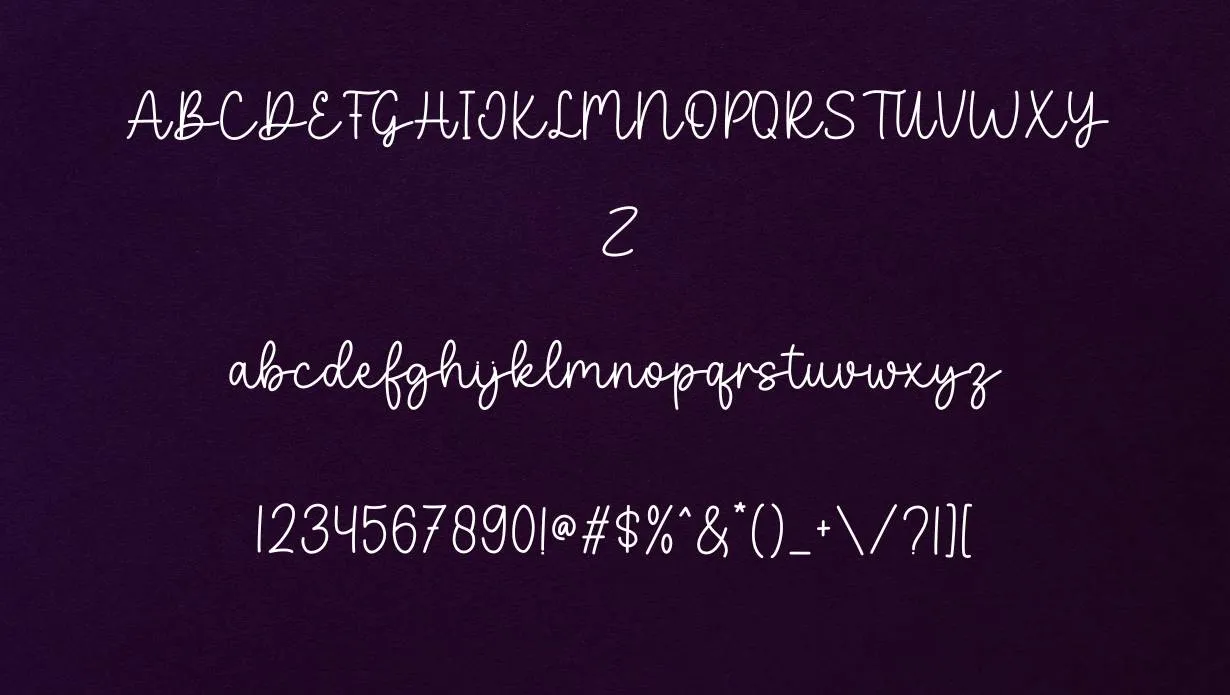
The Abigail font is a timeless and elegant typeface commonly used in designs seeking a sophisticated appeal. Its intricate and stylish letters are perfect for expressing an aura of grace and significance. Discover the charm of this classic font and elevate your projects with a touch of sophistication that never goes out of style.
This font is commonly used in invitations, editorial content, or formal documents. The weight of Abigail’s font tends to be on the lighter side, giving it a delicate and refined appearance.
Its width is typically standard, allowing for readability in various applications, particularly in upscale branding or high-end documents.